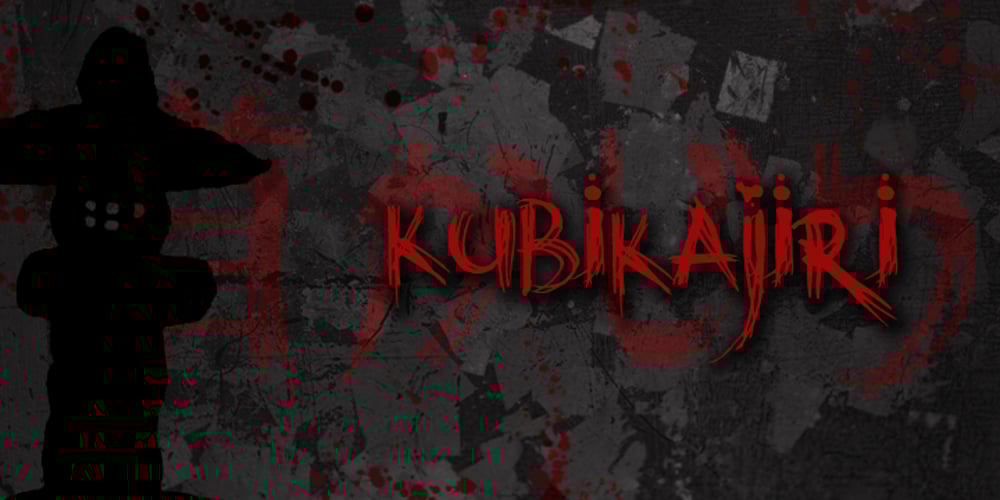
Kubikajiri
Kubikajiri font
Kubikajiri Font Family was designed by David Kerkhoff and published by Hanoded. Kubikajiri contains 2 styles and family package options. Kubikajiri is a scary, scratchy font, hand-made using India ink and a sharp, old-fashioned pen. You can use it for a variety of projects, like ads, posters and websites. Just be careful you don’t lose your head…